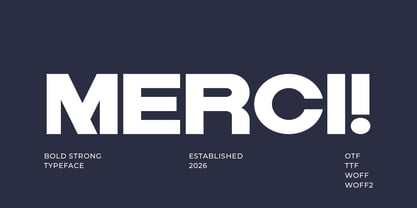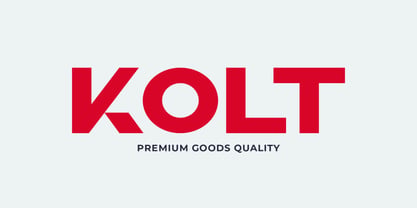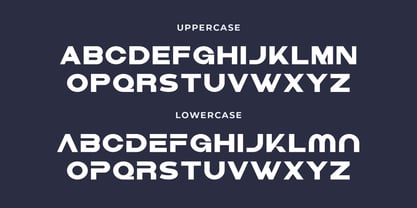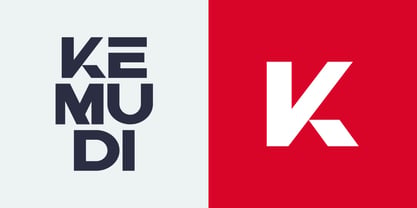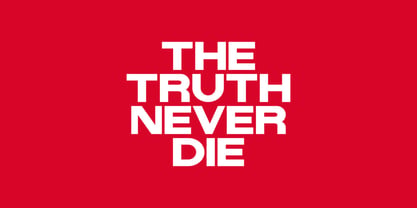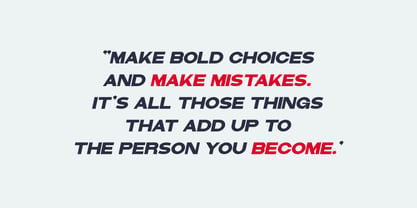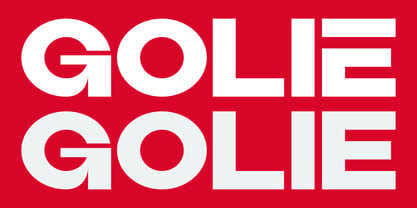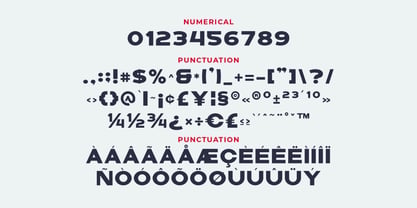
Golie
par Artiveko
La famille de polices Golie a été conçue par Iwan Alwan et publiée par Artiveko. Golie contient 2 styles et options de package familial. En savoir plus sur cette famille
Golie is a bold slab serif typeface crafted to convey strength, stability, and a striking visual impact. Featuring thick strokes, solid slab serifs, and confident letterforms, Golie establishes a commanding presence in any design project. This typeface is ideal for branding, logos, posters, packaging, editorial headlines, and vintage-inspired visuals. Golie seamlessly merges classic slab serif characteristics with a contemporary bold style. Its robust structure instills a sense of reliability and authority while ensuring excellent readability in both print and digital formats. Whether utilized for bold branding, retro-style designs, or impactful marketing campaigns, Golie distinguishes itself with its strong personality and timeless appeal. Golie is more than just a font — it’s engineered for strength, impact, and bold expression.
Concepteurs: Iwan Alwan
Fonderie: Artiveko
Artiveko is a font design team based in Indonesia, comprised of several talented font designers who commenced their careers in the font design industry in 2020. With a dedicated focus on crafting fonts, the team members bring their collective expertise and passion to every project they undertake. Situated in Indonesia, Artiveko draws inspiration from the vibrant cultural landscape of the region, infusing their creations with unique flavors and aesthetics.The team's font collection encompasses a diverse range of styles, including serif, sans serif, handwritten, and script typefaces. Each typeface is meticulously crafted to meet the demands of modern design while offering versatility and functionality across various applications. Whether it's the classic elegance of serif fonts, the contemporary appeal of sans serif designs, the personal touch of handwritten scripts, or the expressive flourishes of script fonts, Artiveko ensures that every font reflects their dedication to quality and innovation.Artiveko's fonts have garnered recognition and acclaim, with their works being featured on prominent social media platforms like Creative Market. Through these platforms, the team has been able to connect with a global audience of designers and typographers, further amplifying their reach and influence in the industry. Their fonts are celebrated for their impeccable craftsmanship, attention to detail, and ability to elevate design projects with style and sophistication.As Artiveko continues to evolve and expand its font collection, the team remains committed to pushing the boundaries of typography and setting new standards of excellence. With a relentless focus on creativity, innovation, and collaboration, Artiveko strives to inspire and empower designers around the world with their distinctive and versatile font designs.